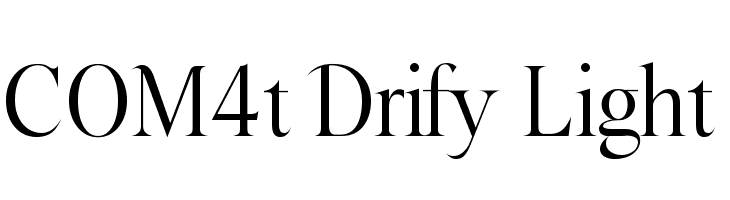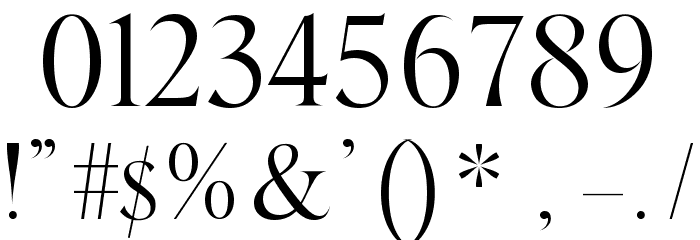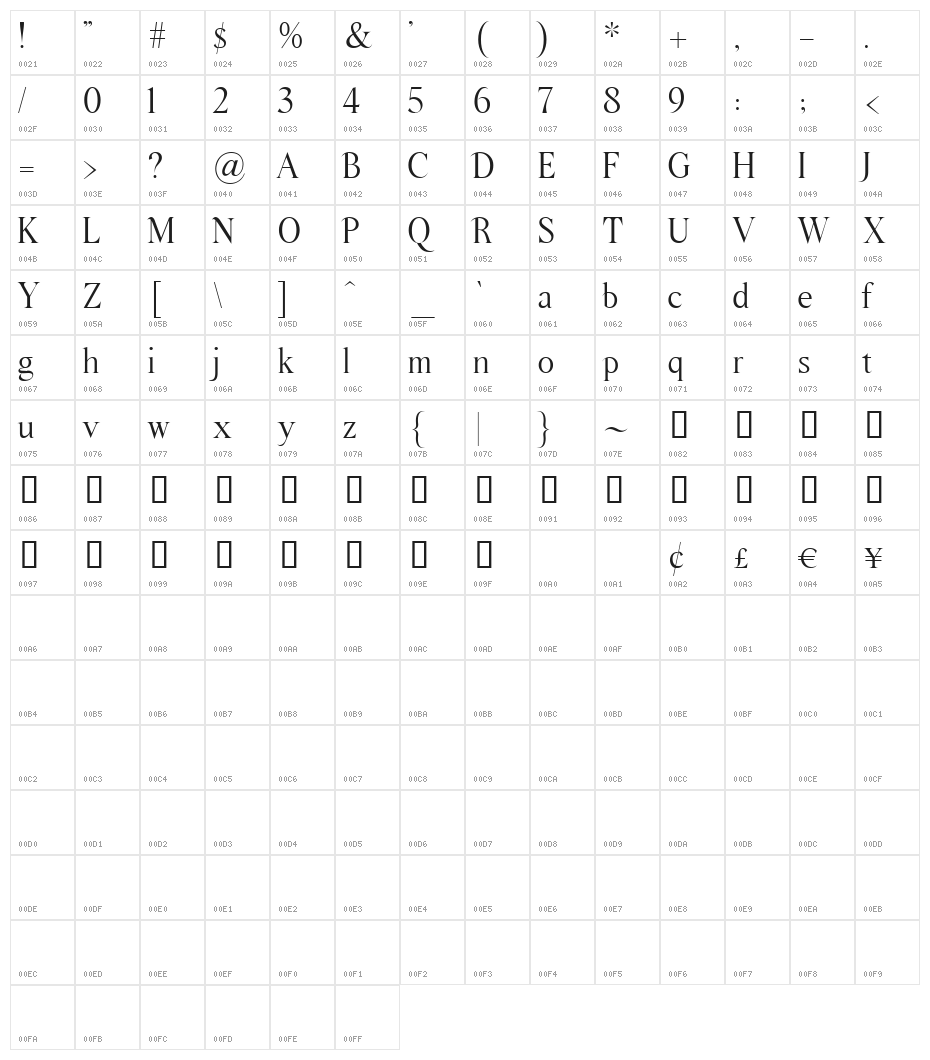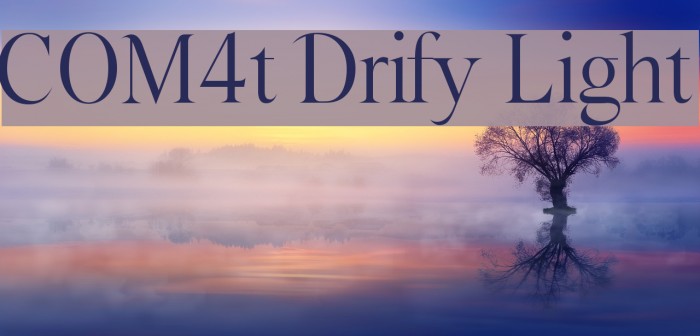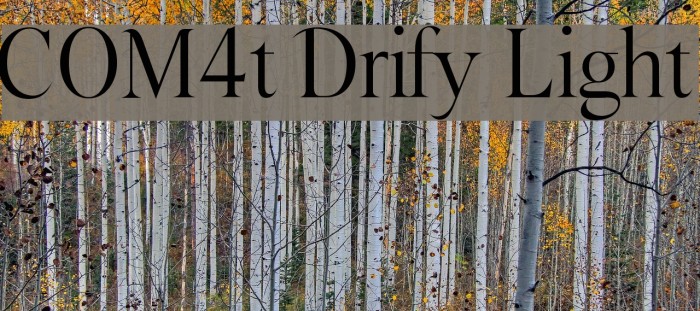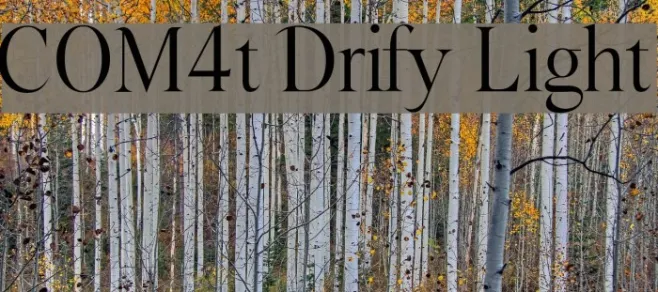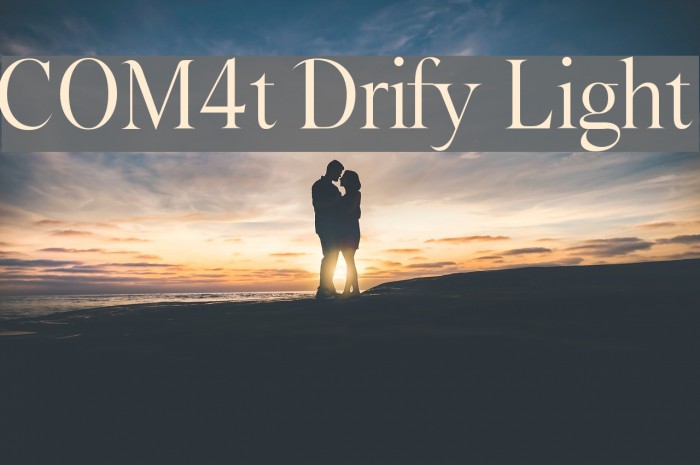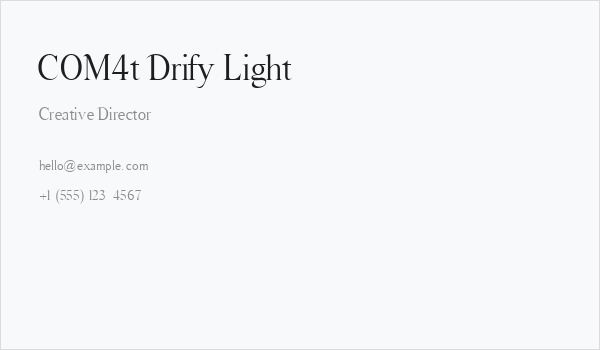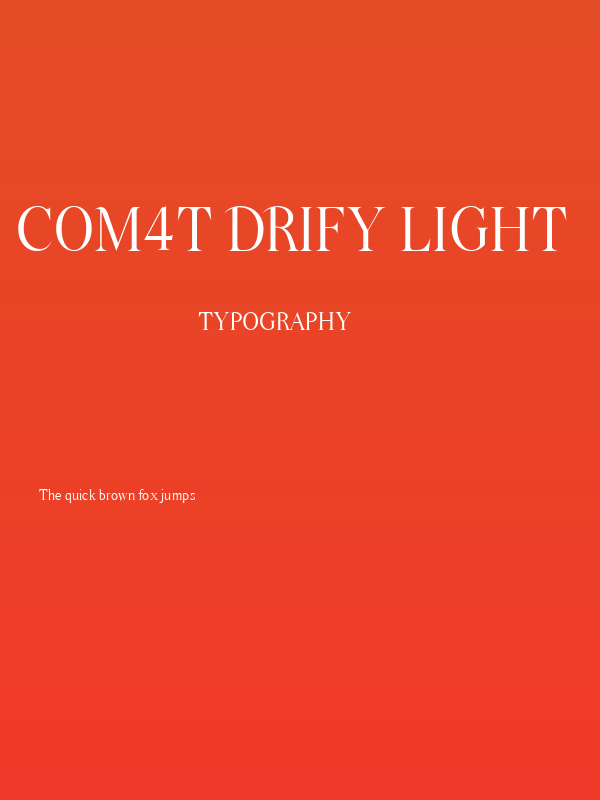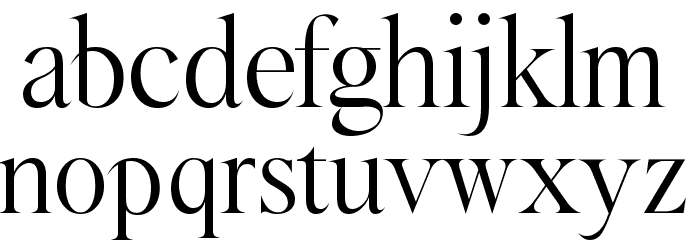
COM4t Drify Light Font
COM4t Drify Light Description
This elegant serif font features a classic and sophisticated design, characterized by its high contrast between thick and thin strokes. The uppercase letters exhibit a traditional form with sharp serifs, while the lowercase letters maintain a refined and graceful appearance. The numerals are well-proportioned, complementing the overall aesthetic. Special characters are thoughtfully designed to match the font's style, making it versatile for various applications. Its timeless appeal makes it suitable for projects that require a touch of elegance and readability.
| Proposed Projects | Ideal for editorial design, book covers, formal invitations, and branding that requires a sophisticated touch. |